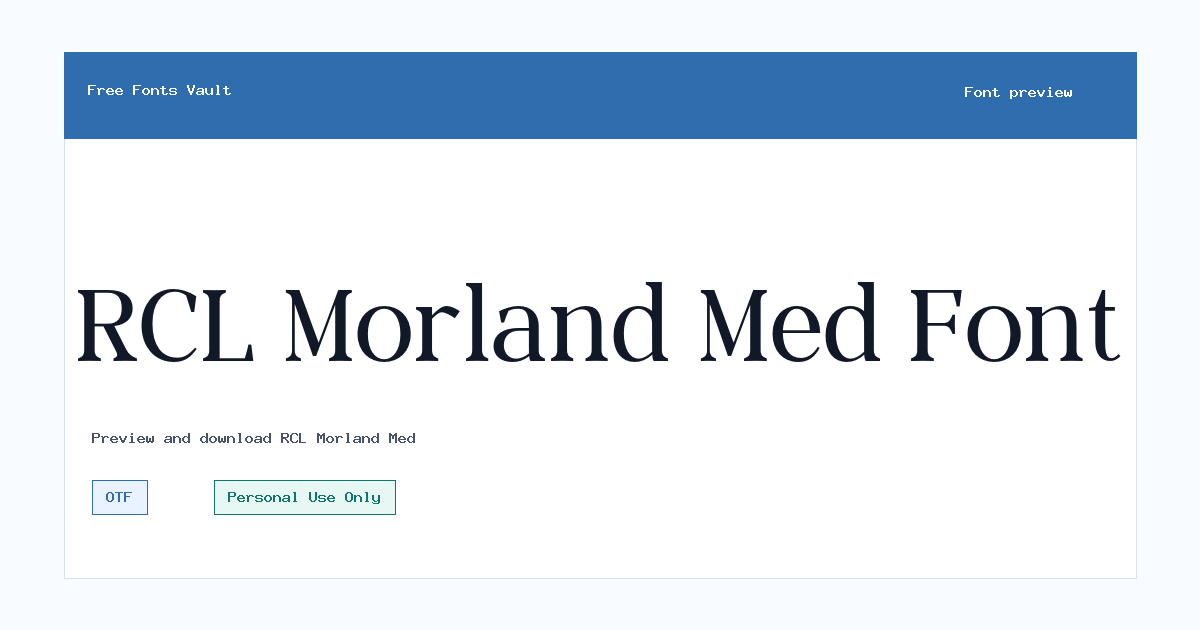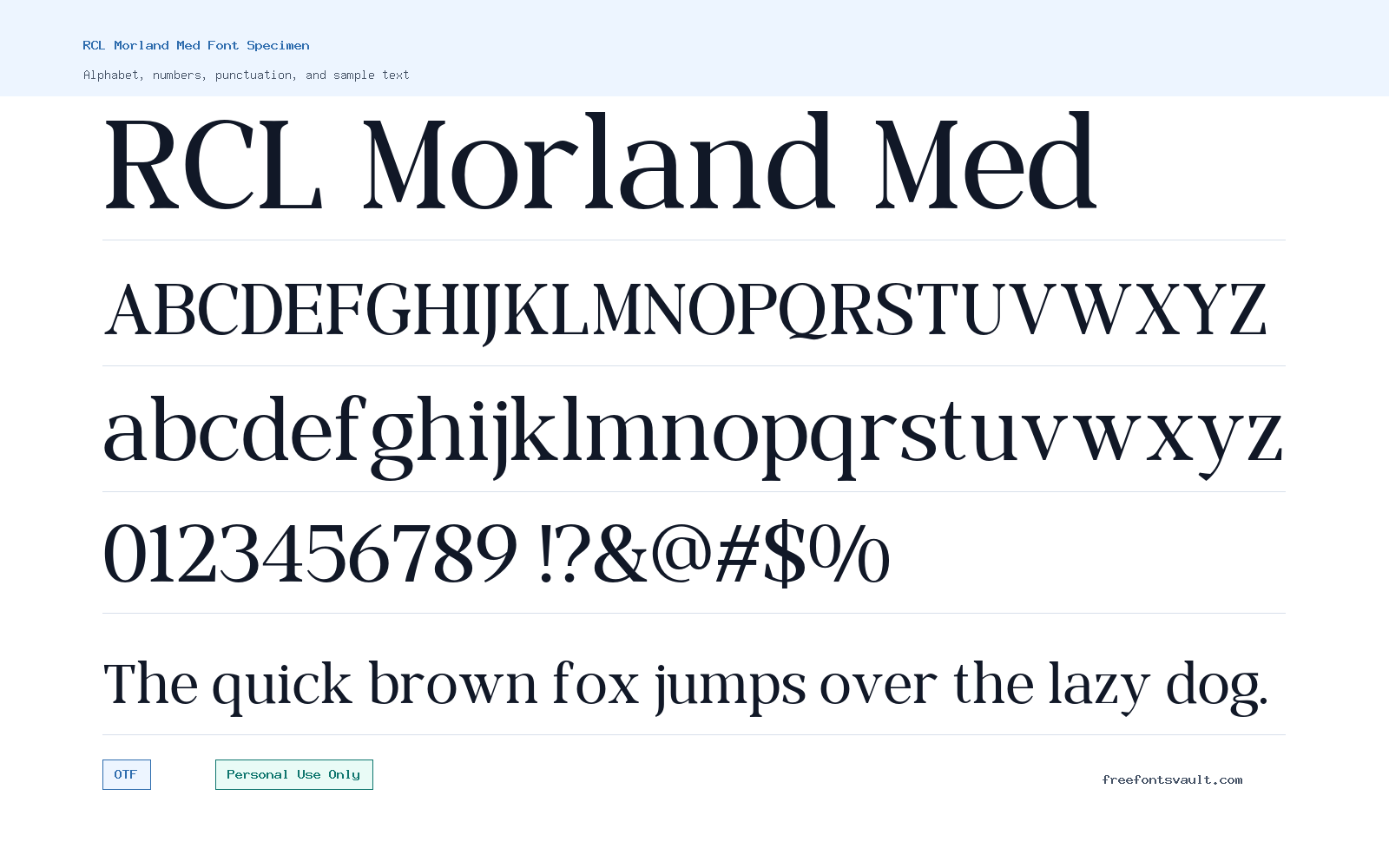
RCL Morland Med
- Designer Bakhrudin Ja'far
RCL Morland Med is a medium-weight style from the Morland Serif Font Family. It includes upright and italic OTF files, making it useful when you want a serif font with a little more structure than a light text face but less weight than a bold display style.
RCL Morland Med works best as a steady middle weight in the Morland family. The medium weight can help titles, section headers, quotes, invitations, and editorial layouts feel more defined without making the design too heavy. Since the family name identifies it as a serif font, it is a good option to test when you want a more traditional text feel with enough presence for short display use.
The download includes both a normal medium style and a medium italic style in OTF format. That combination is practical for simple font pairing inside the same family: use the upright style for names, headings, labels, or short blocks of copy, then use the italic for emphasis, captions, pull quotes, or decorative supporting text. Before using it in a finished design, type your own words in the preview and check spacing, punctuation, uppercase letters, numerals, and accented characters if your project needs them.
- Medium-weight serif style for headings, short text, and display use
- Editorial-style headings, quote graphics, invitations, and stationery
- Personal design previews, mockups, posters, and social media layouts
What kind of font is RCL Morland Med?
It is listed as part of the Morland Serif Font Family, with this page covering the medium weight.